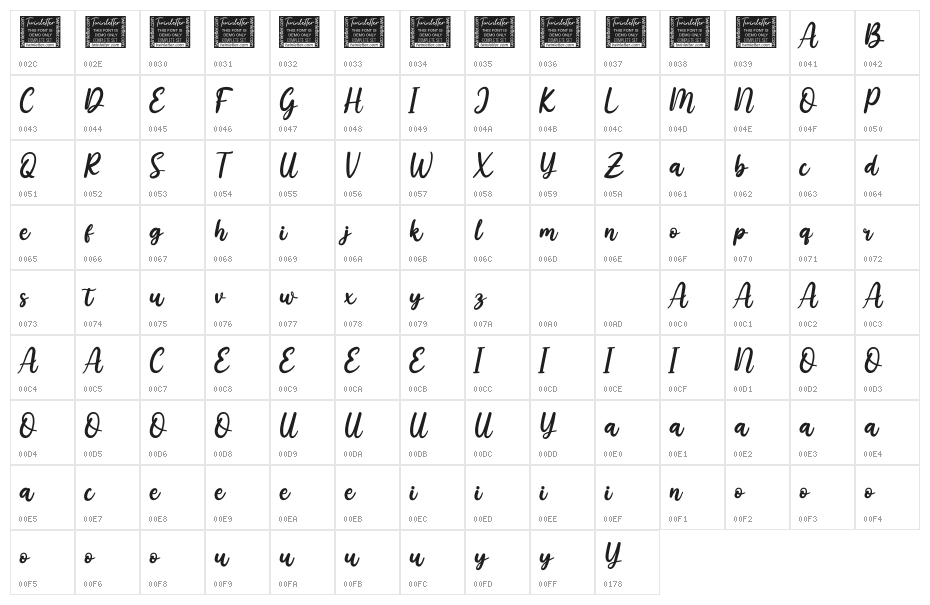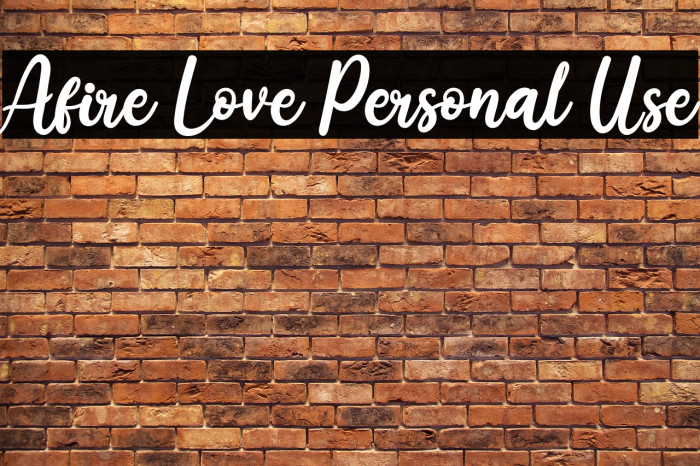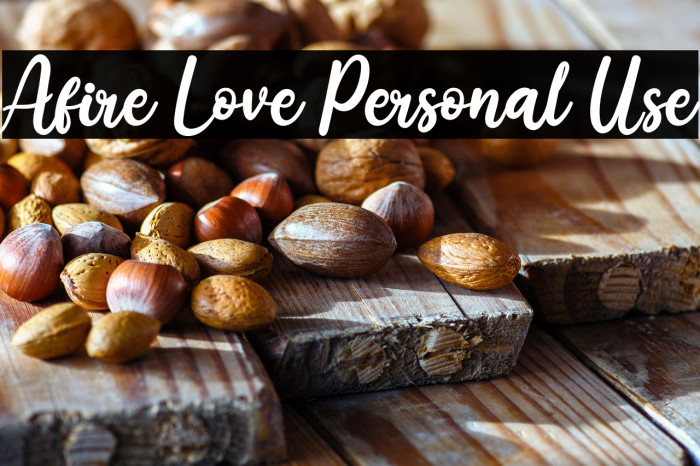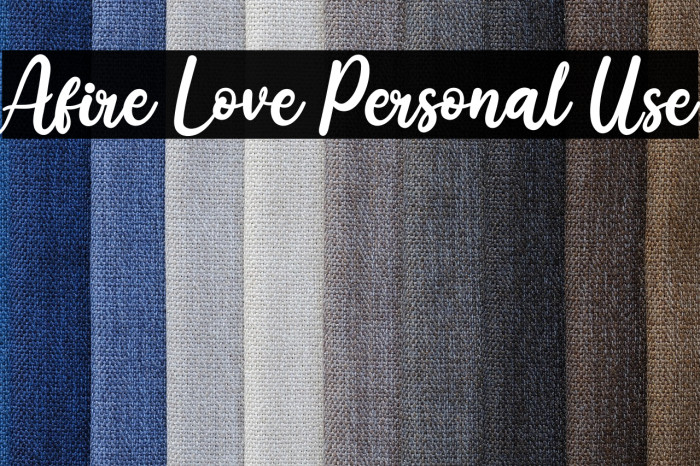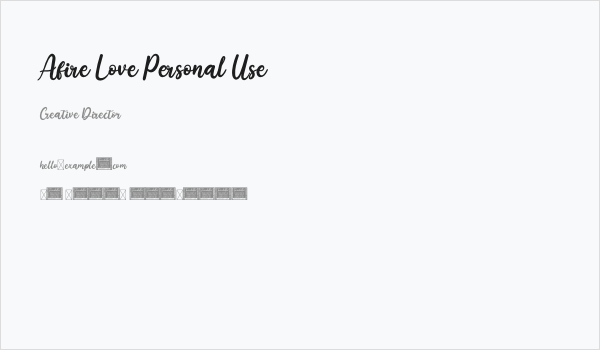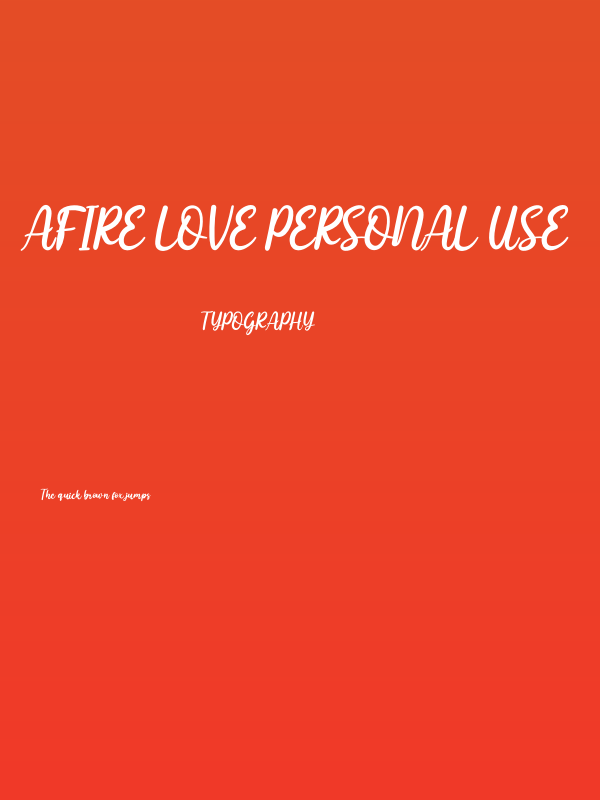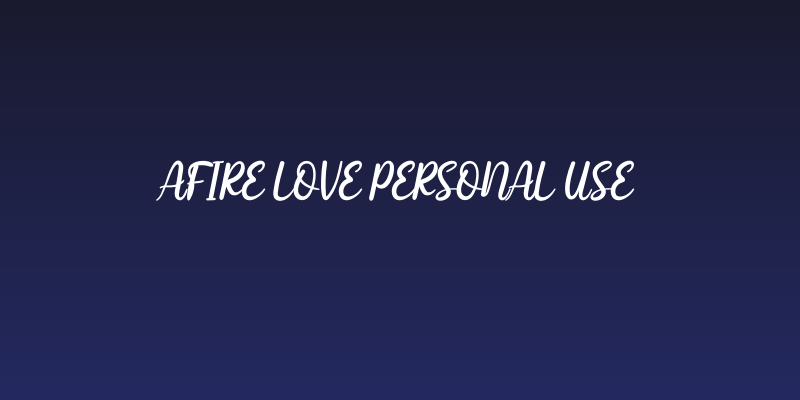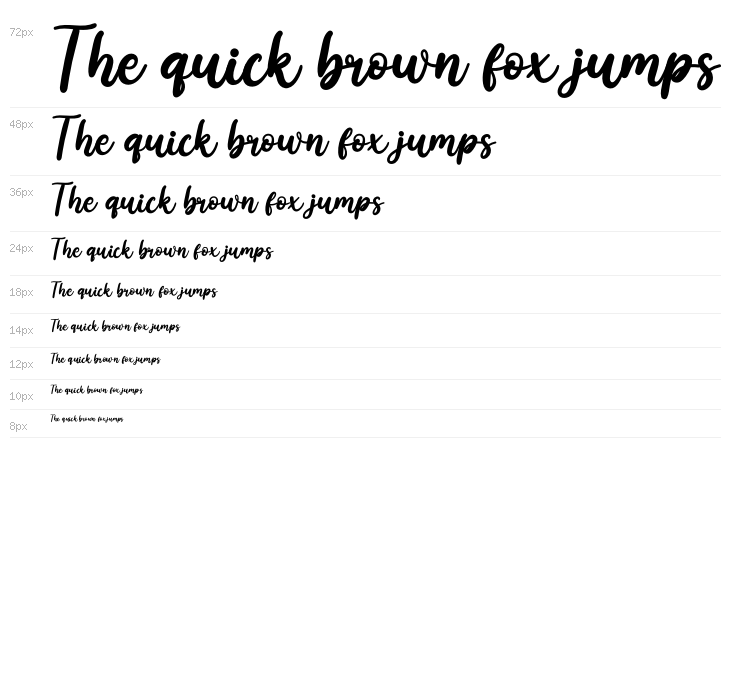
Afire Love Personal Use Font
Afire Love Personal Use Description
This font features a bold and flowing script style, characterized by its smooth, cursive strokes and elegant curves. The uppercase letters are particularly striking, with a sense of movement and flair that adds a touch of sophistication. The lowercase letters maintain a consistent flow, enhancing readability while retaining a stylish appearance. The numerals and special characters are designed to complement the overall aesthetic, making the font versatile for various design needs. Its handwritten quality gives it a personal and inviting feel, suitable for projects that require a touch of elegance and warmth.